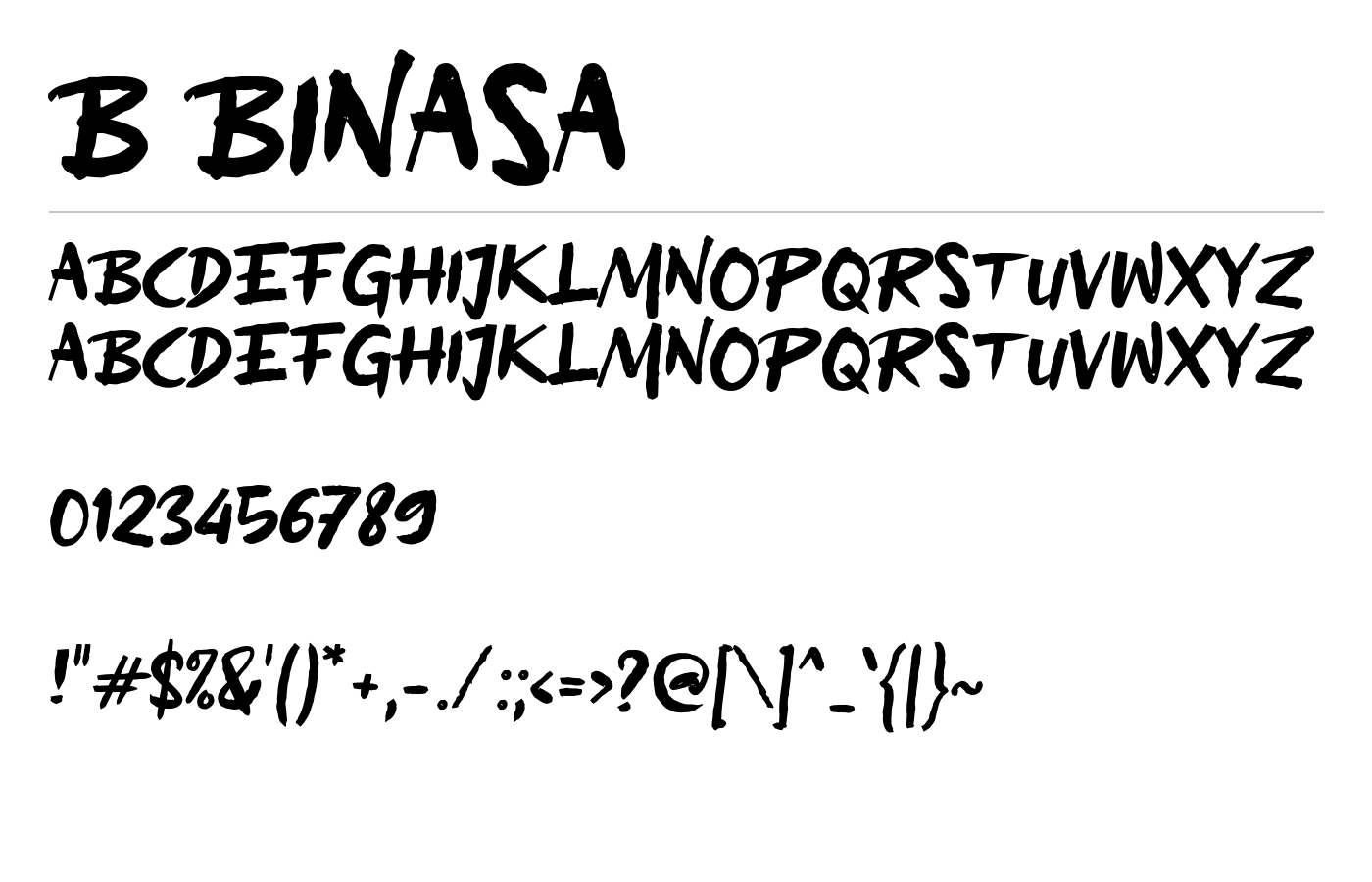
b Binasa is a bold, hand-drawn sans serif font with a playful and energetic personality, characterized by its rough, brush-like strokes and irregular shapes. Its informal and dynamic style makes it perfect for creative projects, casual branding, and lively headlines where a sense of individuality and spontaneity is desired. This font works best in designs that want to convey a fun, artistic vibe rather than formal or traditional tones.
b Binasa Font
About b Binasa Font